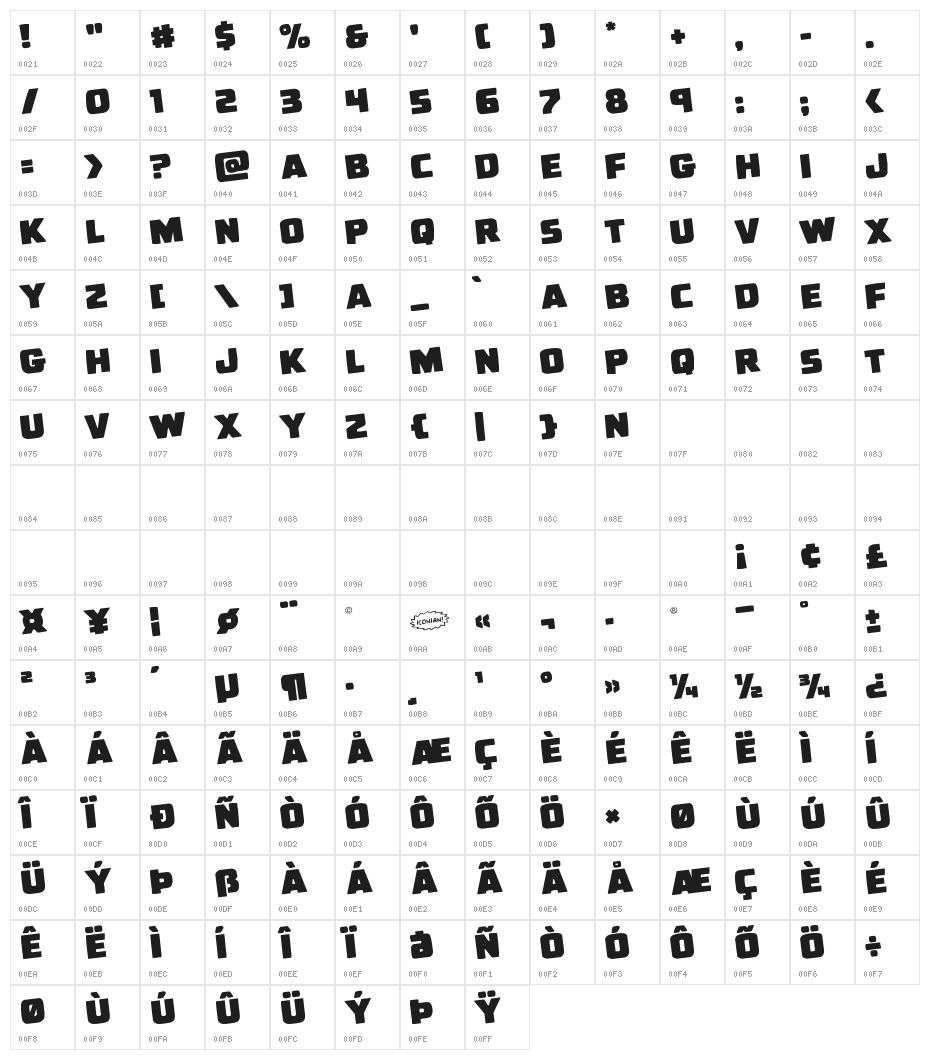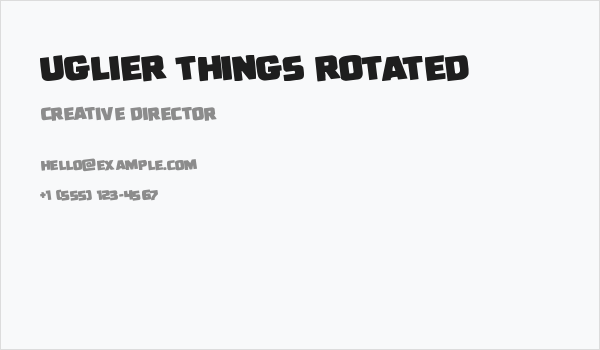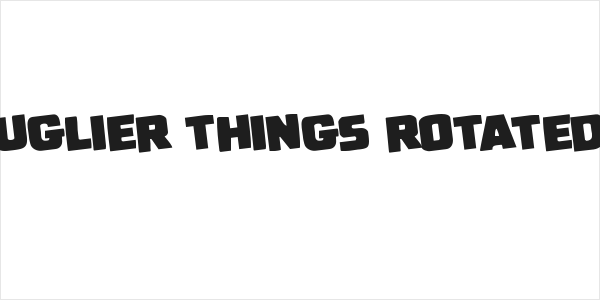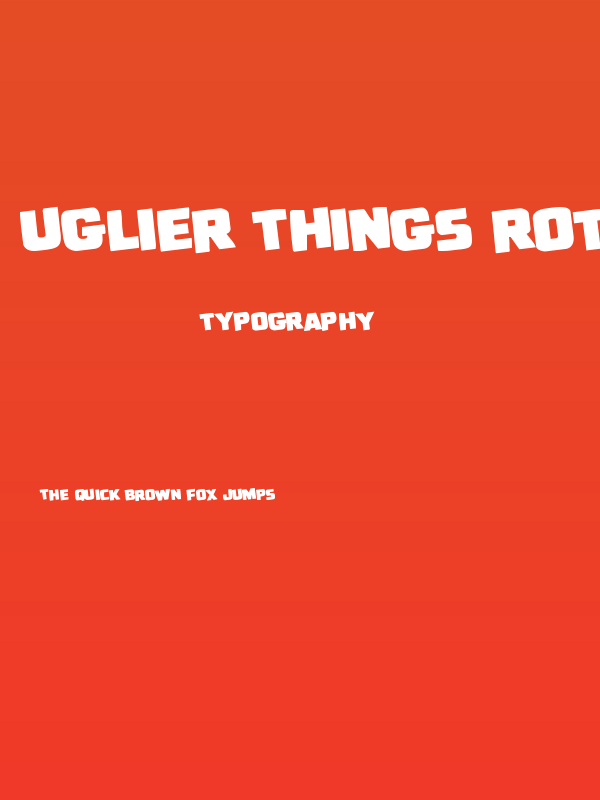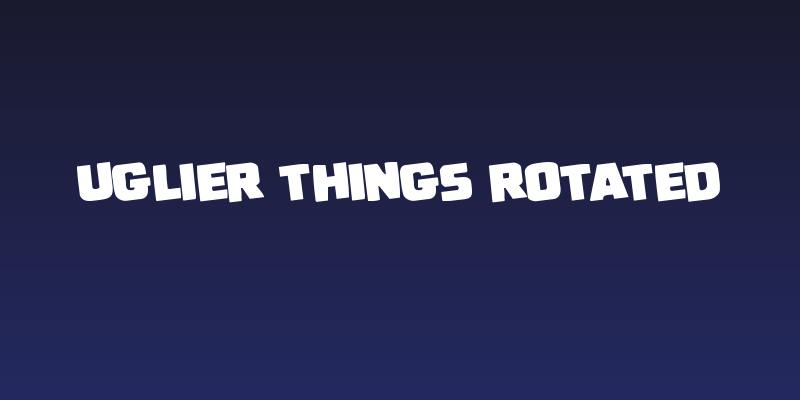
Uglier Things Rotated Font
Uglier Things Rotated Description
This font features bold, blocky characters with a slightly irregular and playful appearance. The letters are heavily weighted, giving them a strong presence, and the edges are rounded, adding a friendly touch. The characters are slightly tilted, creating a dynamic and energetic feel. The font is highly legible, with consistent stroke thickness throughout, making it suitable for attention-grabbing headlines or titles. Its unique style is both modern and slightly retro, reminiscent of vintage signage or comic book lettering.
| Overall Style | Modern, Retro |
| Proposed Projects | Ideal for posters, comic book titles, retro-themed designs, and branding that requires a bold statement. |